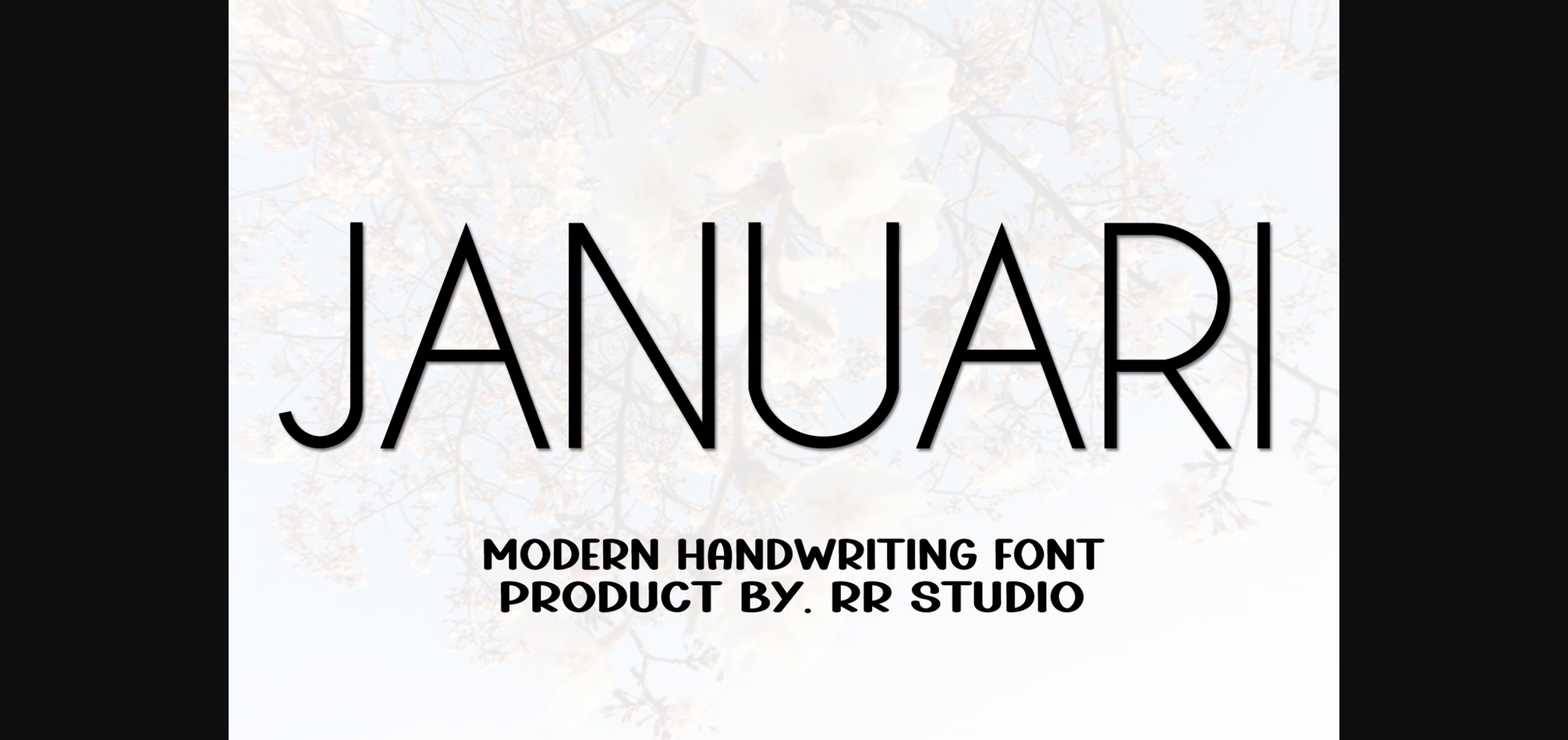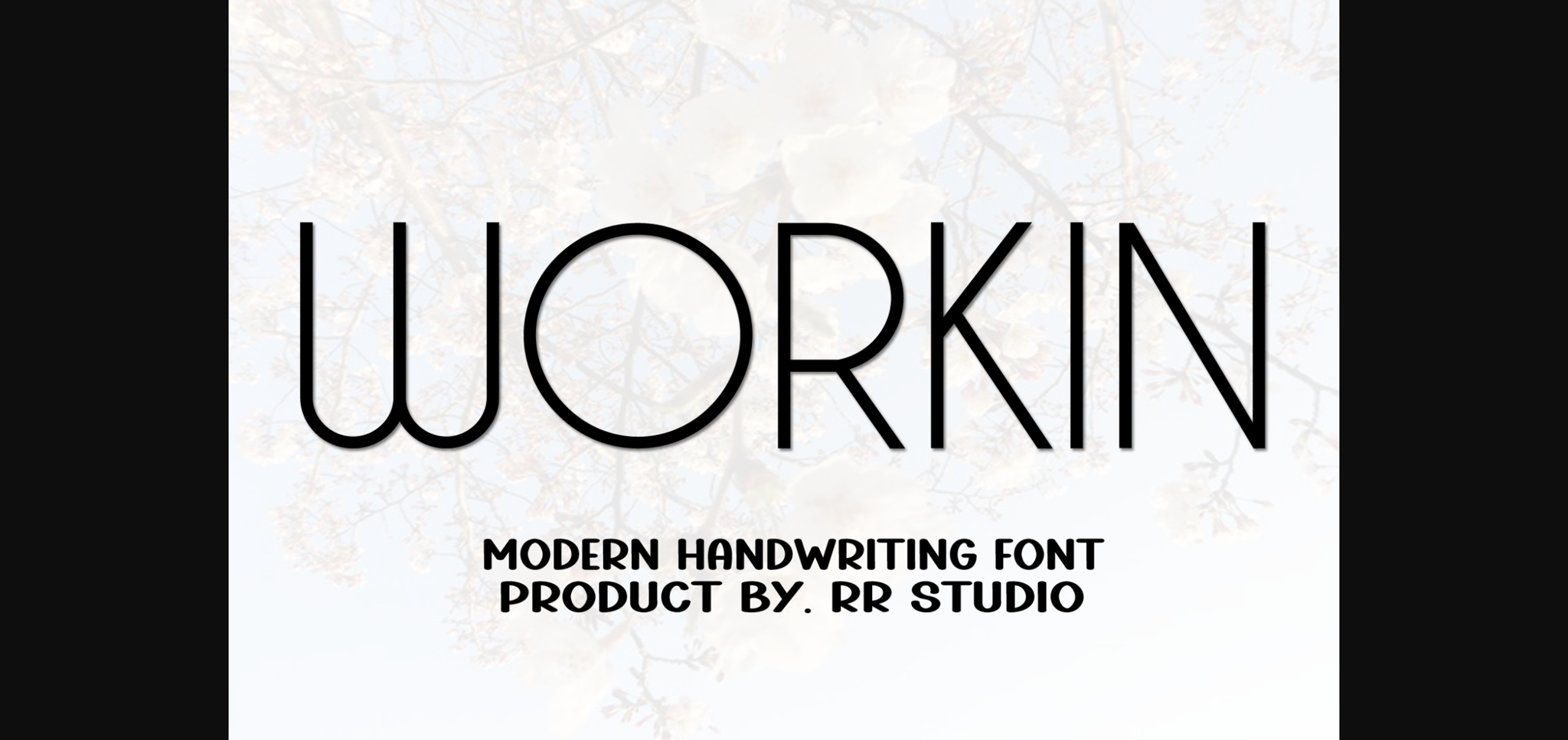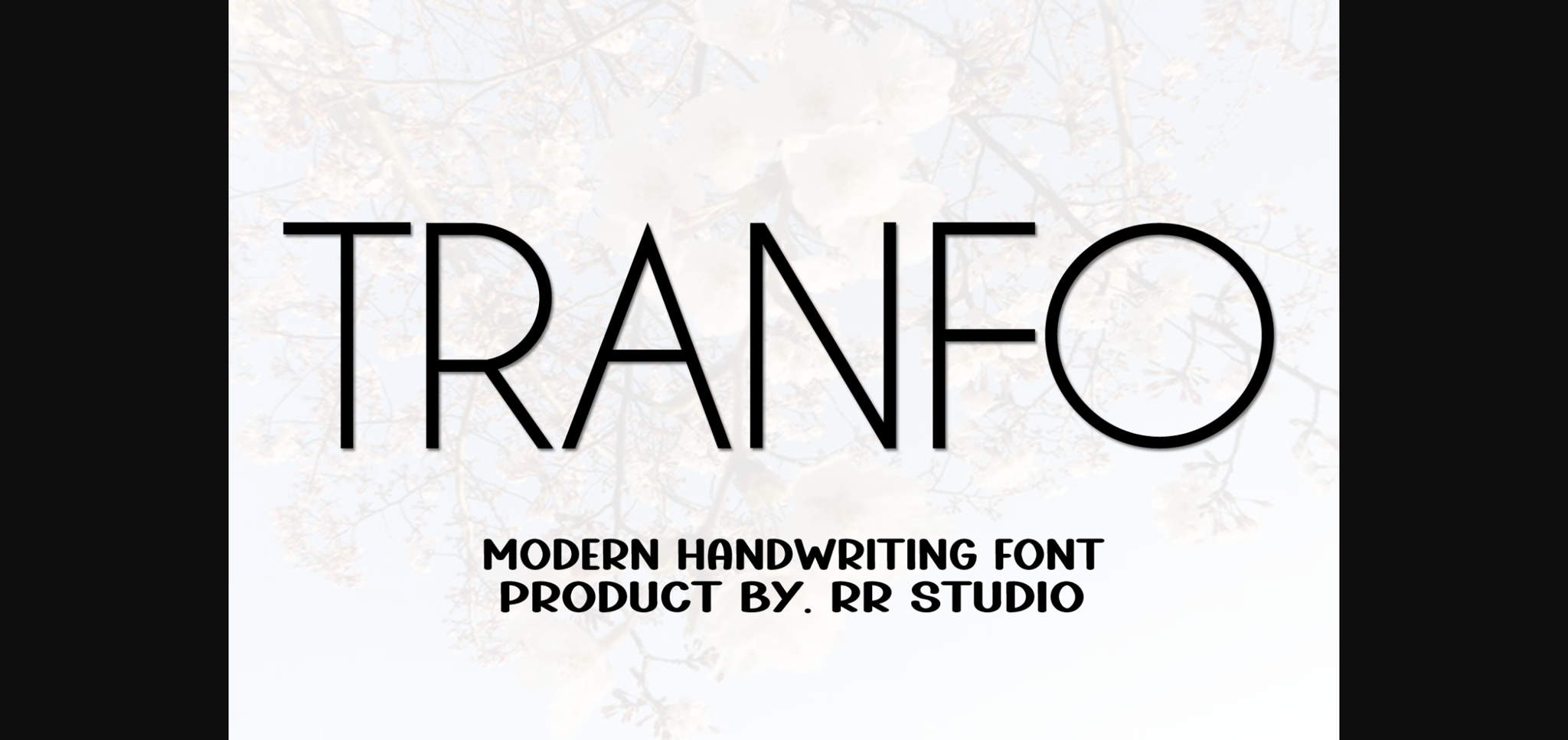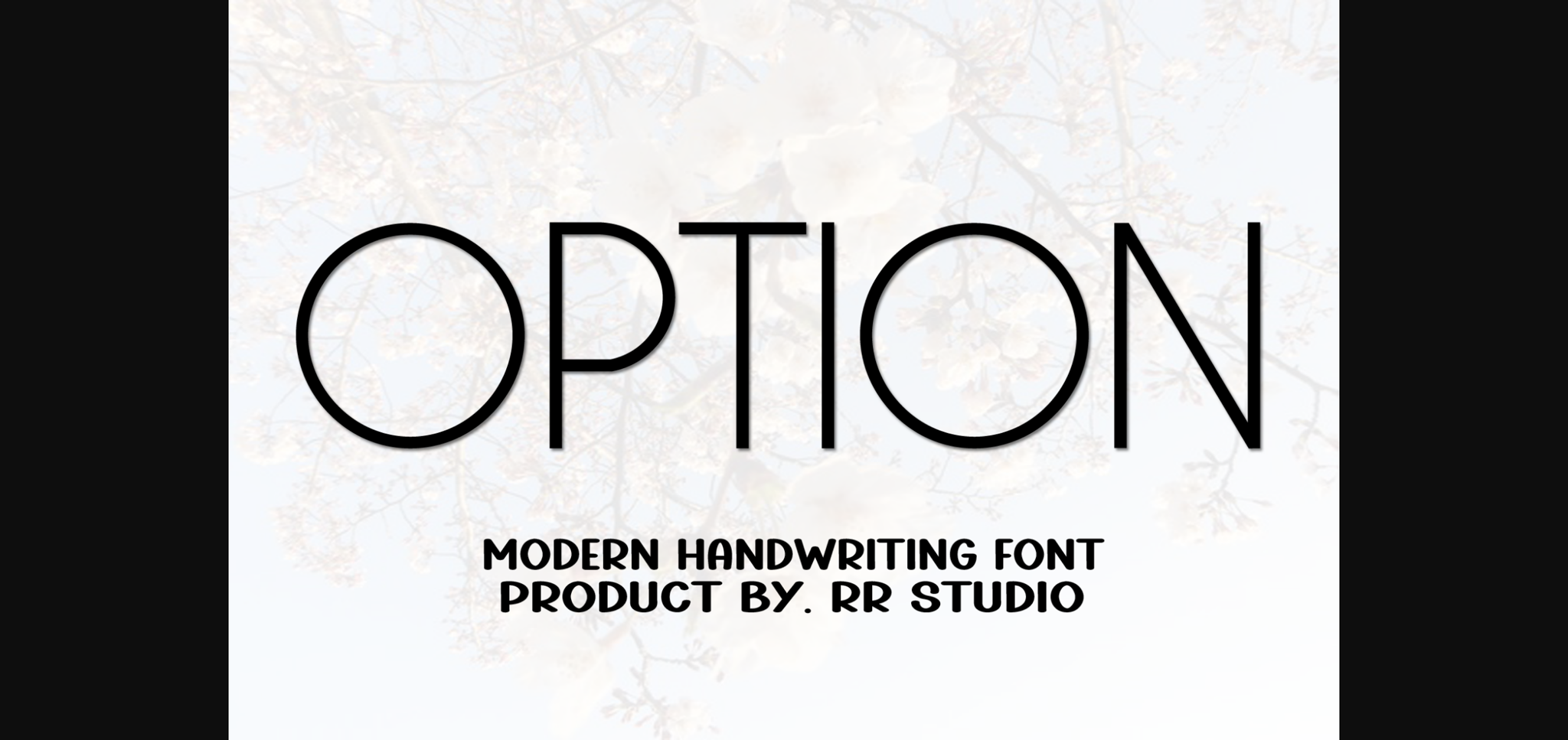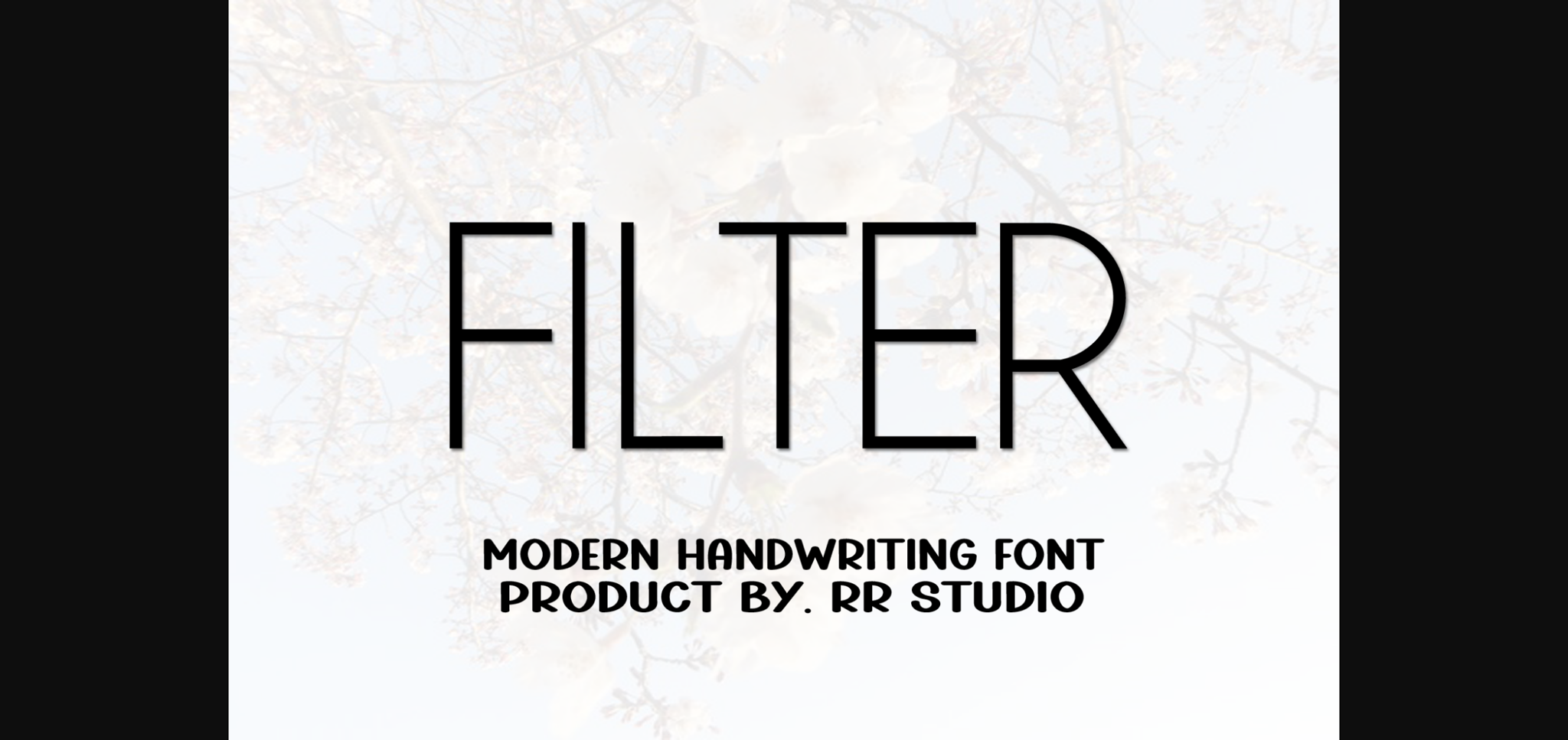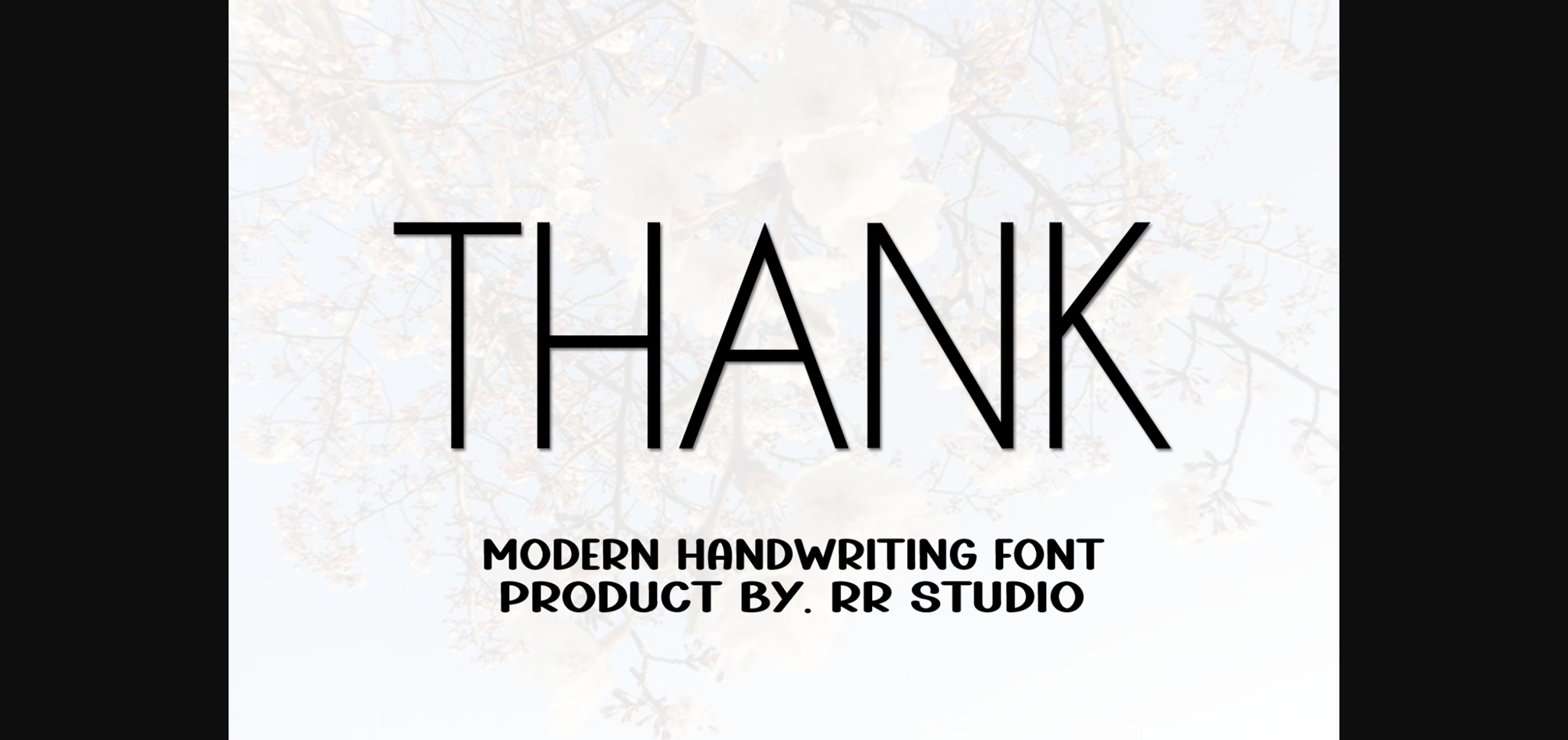
HomeSans Serif FontsJanuari Font Sans Serif Fonts Januari Font FacebookXPinterestWhatsApp 1 of 8 ... Januari Font Poster 2... Januari Font Poster 3... Januari Font Poster 4... Januari Font Poster 5... Januari Font Poster 6... Januari Font Poster 7... Januari Font Poster 8... About Januari Font Januari is a stylish and incredibly elegant sans serif font. It looks stunning on wedding invitations, thank you cards, quotes, greeting cards, logos, business cards and every other design which needs a handwritten touch. DOWNLOAD NOW People also explored Grass Green Font Danila Elegant Font Straight Font Monaco Font Signatural Font Bounces Font Downward Fall Blackpool Font Khungfud Font 274 0 TagsJanuariJanuari Font Previous articleStarlight FontNext articleMelody Font LEAVE A REPLY Cancel reply Comment: Please enter your comment! Name:* Please enter your name here Email:* You have entered an incorrect email address! Please enter your email address here Website: Save my name, email, and website in this browser for the next time I comment. Personal Use Free The Quick Personal Use Free Read more about this font Hello Ketta Personal Use Free Read more about this font Anti Personal Use Free Read more about this font Abingdon Personal Use Free Read more about this font BLOG Free Fonts Risk: Why Free Fonts Can Be Dangerous for Designers Free Fonts Risk: Why Free Fonts Can Be Dangerous for Designers Using free fonts is a common practice in web and graphic design. However, the... To increase your work productivity, choose the most readable fonts. Exploring Font Trends Fonts That Capture the Spirit of New York City